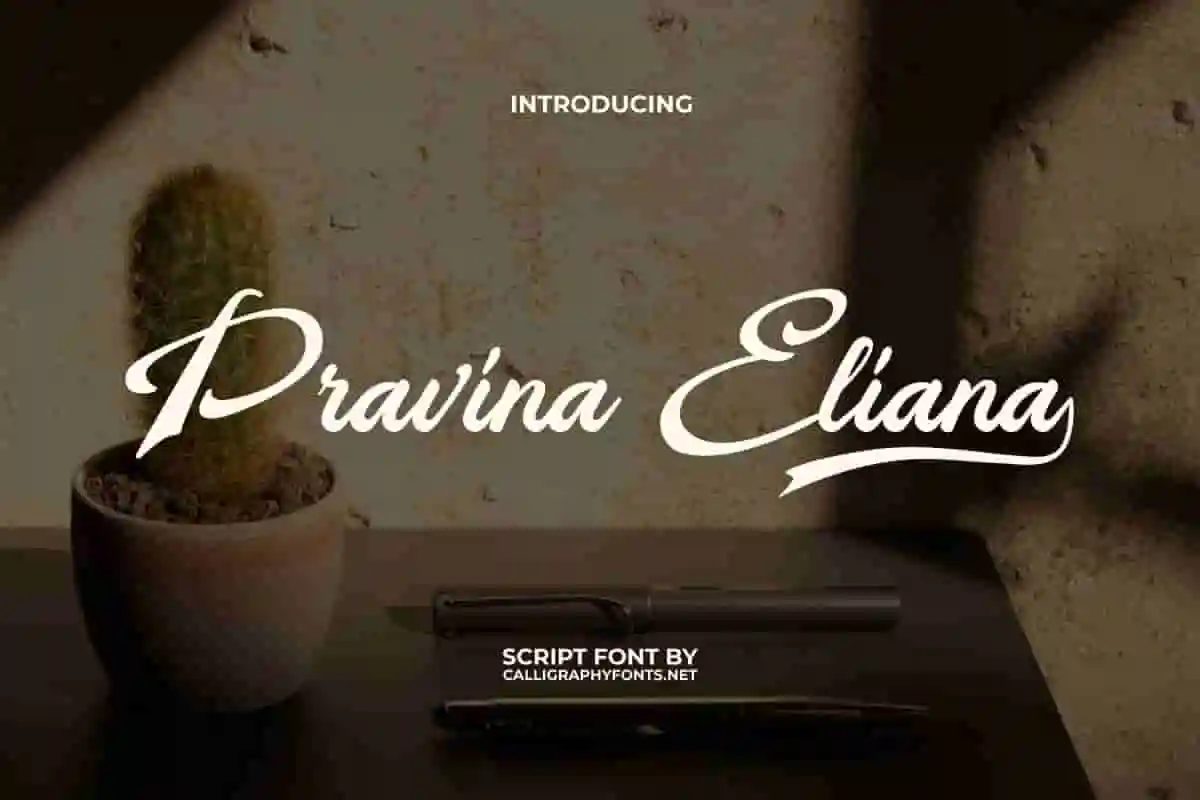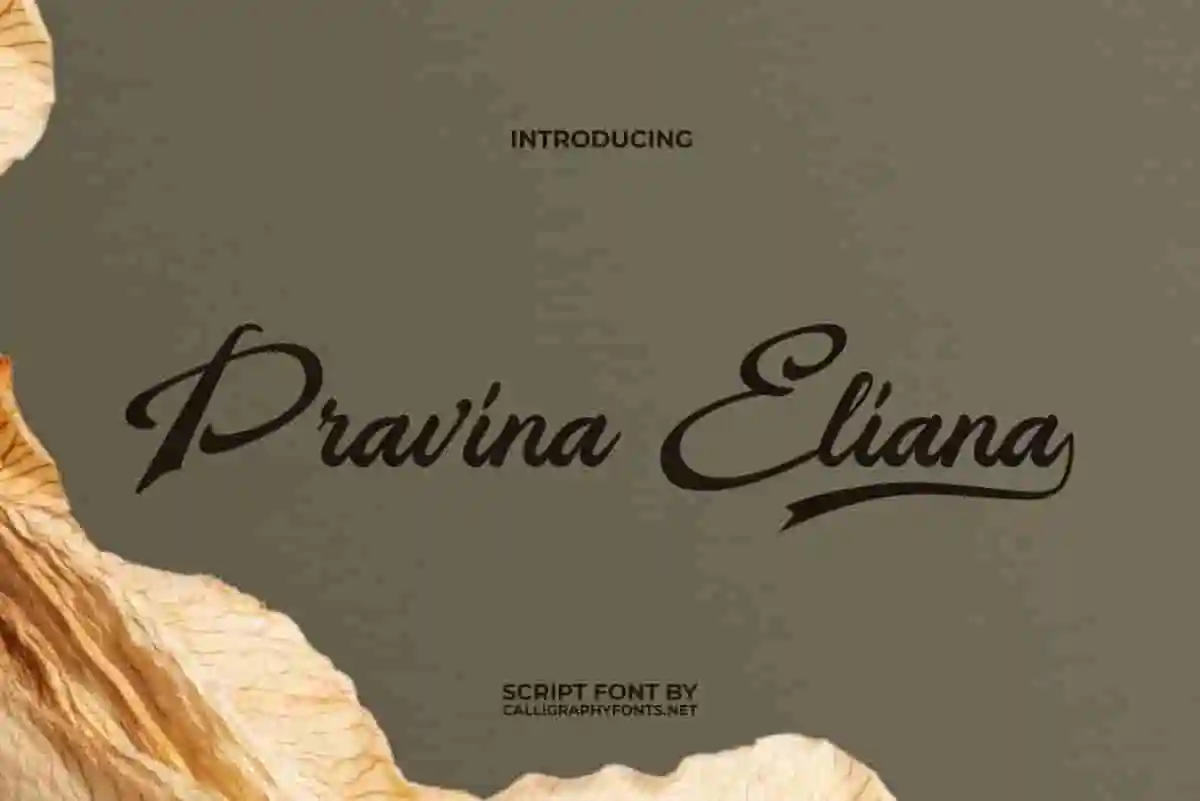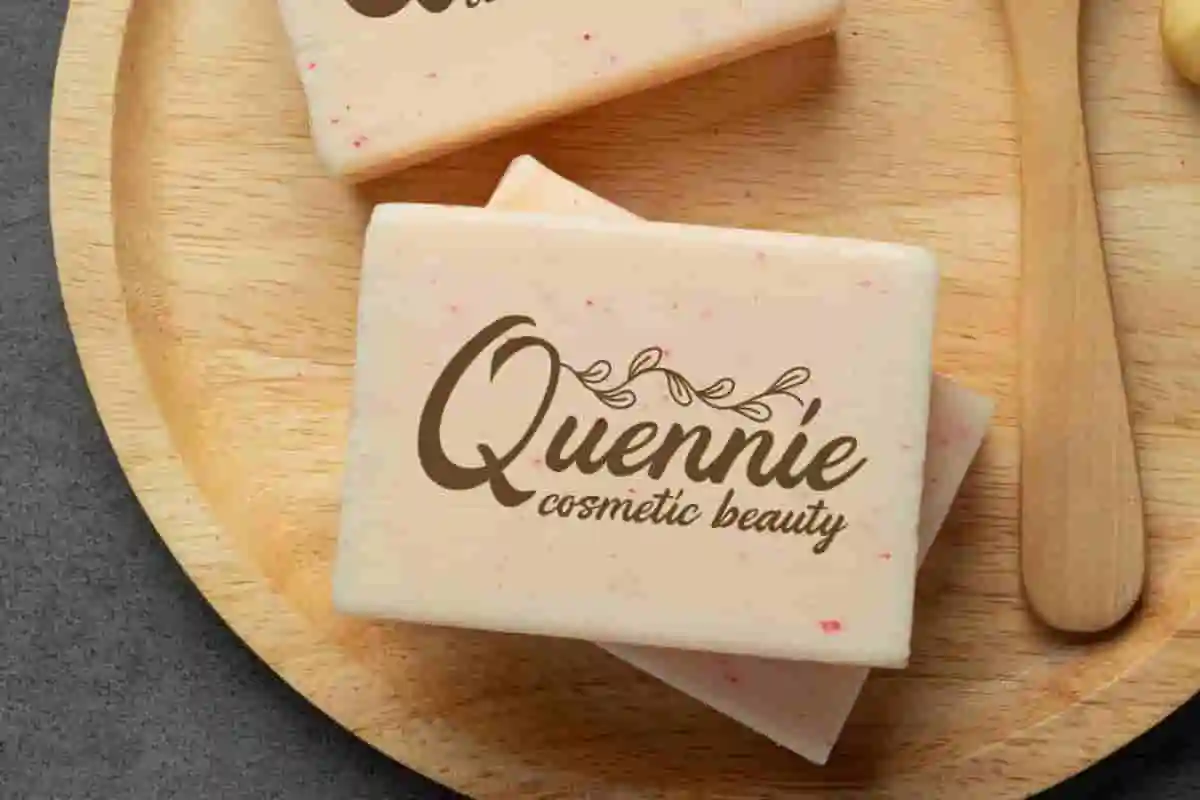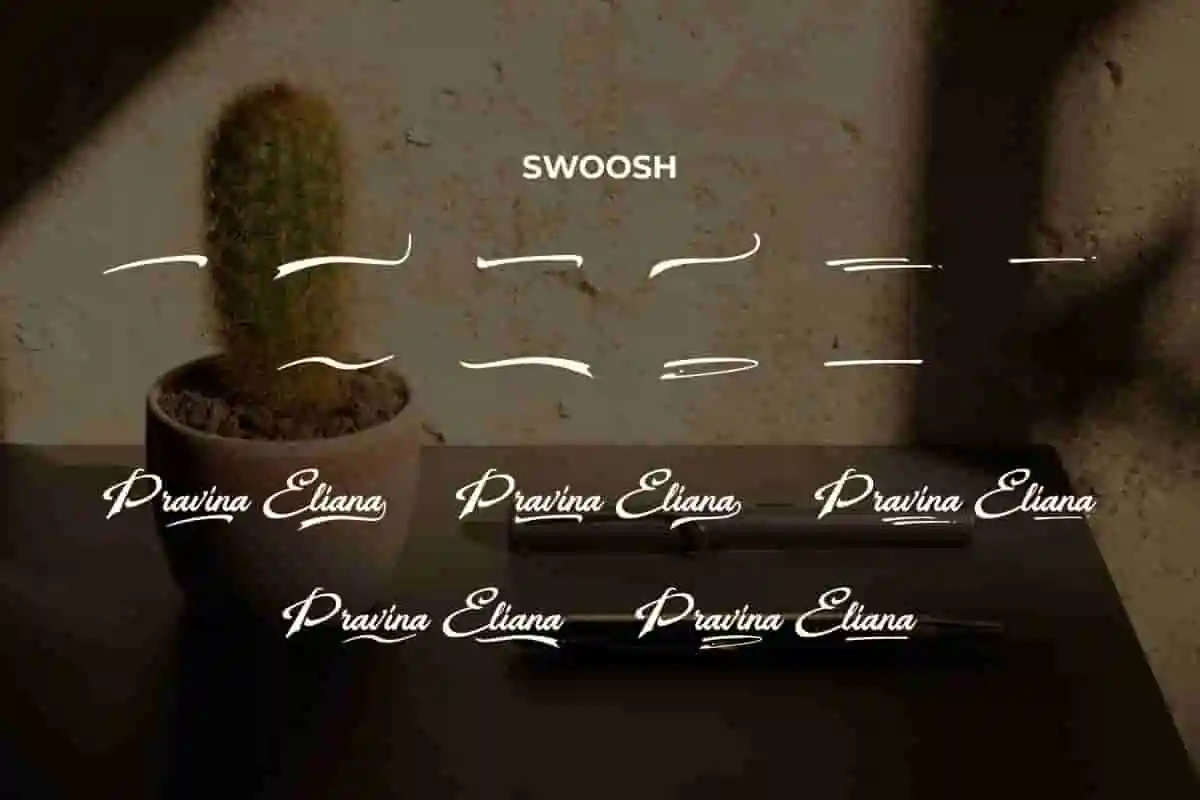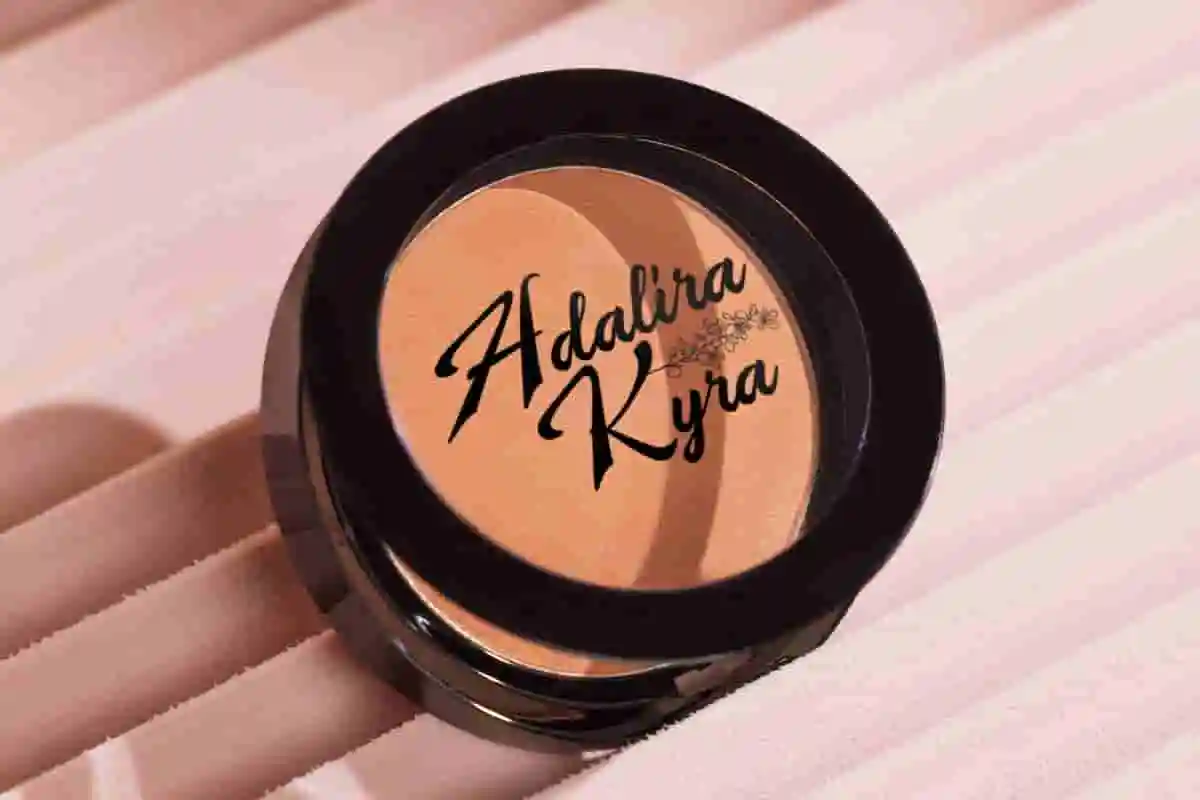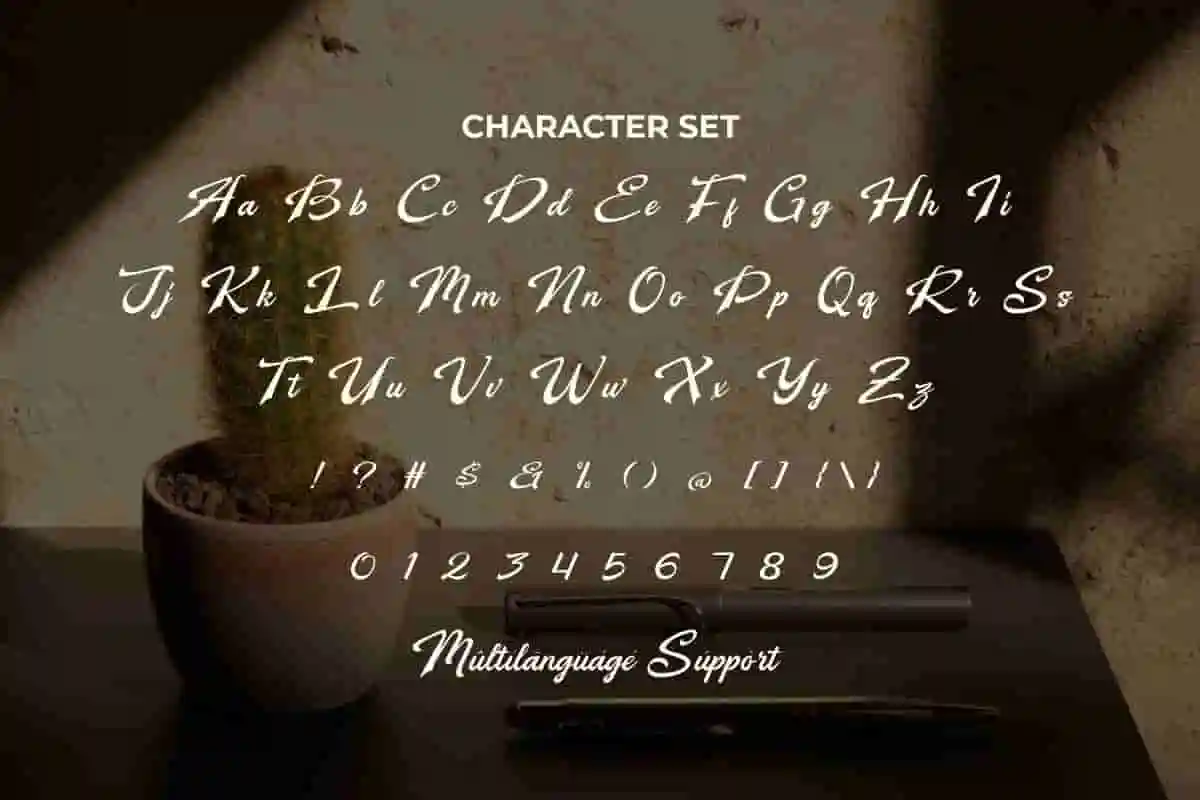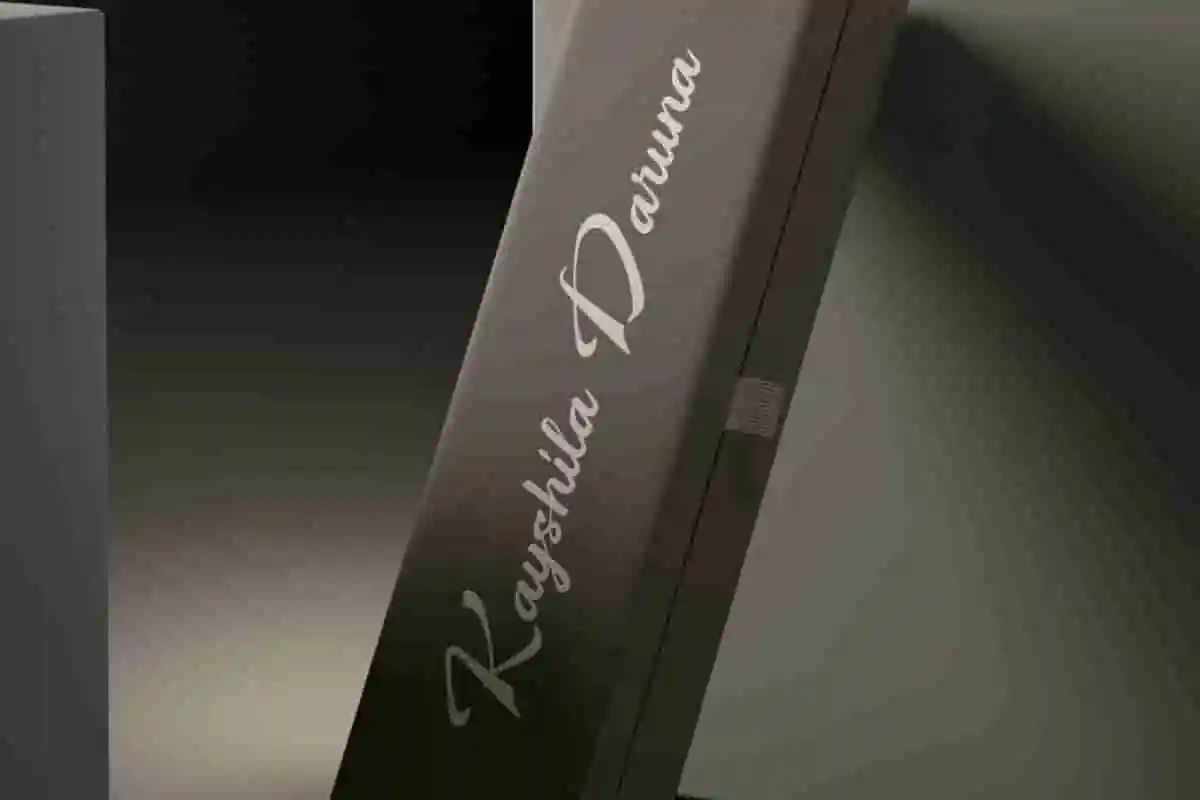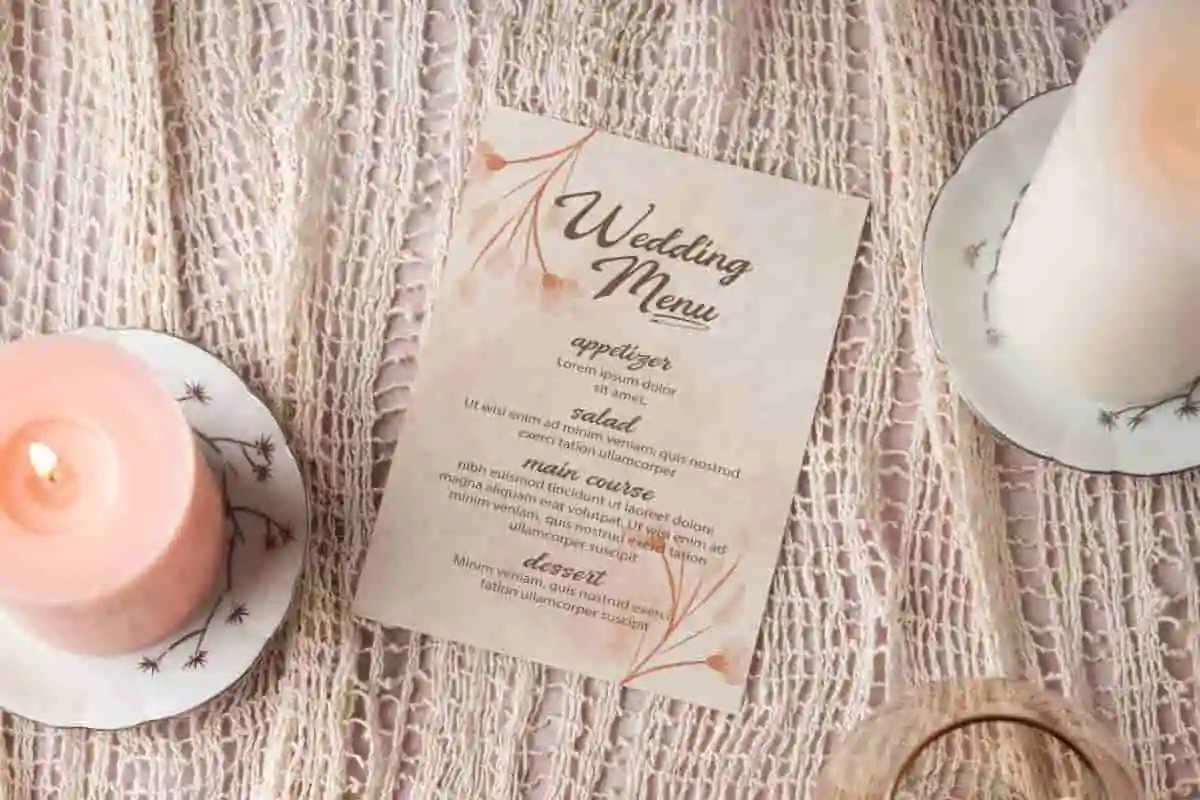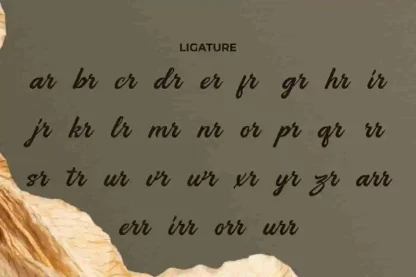
Pravina Eliana Brush Font
Pravina Eliana Font is a graceful script font in a classic calligraphy style that has been made more modern. The addition of Ligature and Swoosh gives this font a premium feel making it perfect for all your design projects.
Pravina Eliana Font is a beautiful and neat calligraphy script font carefully crafted in a modern style. It presents a font creation that combines the charm of beauty and elegance perfectly. It’s perfectly made to any creative design project, such as blogs, brand logo, brochure, custom design, flyer, headers, invitation, label, logo, menu, packaging, quote, printed materials, screen print, stickers, watermark, website, and many more!
Bring elegance and personality to your designs with Pravina Eliana Brush Font, a beautifully handcrafted brush script font created to elevate your creative projects. Whether you’re designing wedding invitations, logos, branding materials, social media posts, or packaging, this elegant brush font delivers a smooth, natural flow with a modern, artistic flair.
Elevate your designs with Pravina Eliana Brush Font, an elegant and beautifully hand-drawn brush script font designed to add charm and sophistication to any project. Perfect for wedding invitations, branding, social media posts, packaging, and more, this font brings a personal, artistic touch that makes your work truly stand out.
Discover the beauty of handmade typography with Pravina Eliana Brush Font, a stunning brush script font designed to add elegance and personality to your creative work. Perfect for wedding invitations, logos, branding, social media, packaging, and more, this handcrafted font transforms ordinary text into captivating art.
- Hand-drawn brush script
Pravina Eliana Font is a stunning calligraphy script typeface that flows beautifully with a distinctive modern aesthetic. It allows you to explore endless creativity. This font is perfect for your next business, such as accessories, advertising, beauty product, cosmetic, event organizer, graphic design, printing, publishing, restaurant, skincare, wedding, etc.
Pravina Eliana Font comes with a complete set of Uppercase and Lowercase Basic Characters, Numbers, a large range of Punctuation, Symbol, Ligature and Swoosh. It is supported with multilingual characters and ready to use both on Windows machine or Mac with simple installations. It’s tested to work well in the Adobe Apps (Illustrator, Adobe InDesign, Adobe Photoshop) CorelDraw, and others. PUA Encode Characters means you can access all the characters easily – Fully accessible without additional design software.